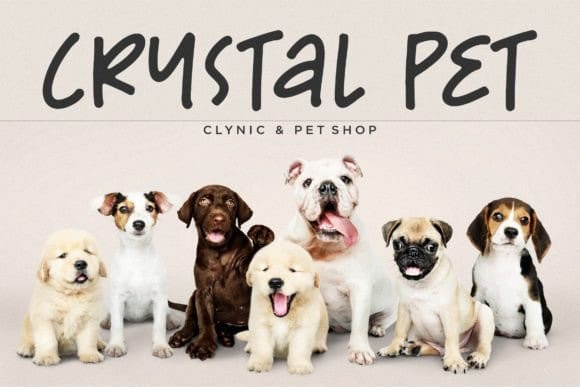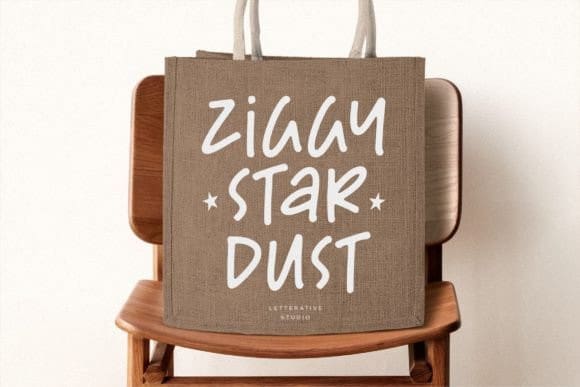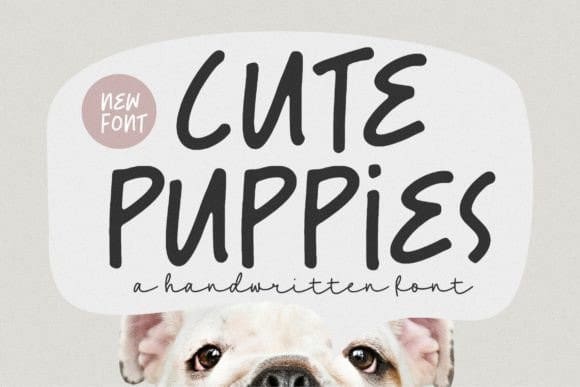
Cute Puppies Font
Cute Puppies Handwritten Font, Brings simplicity and modernity to your designs. Its clean lines and effortless style are perfect for branding, social media graphics, and minimalist designs.